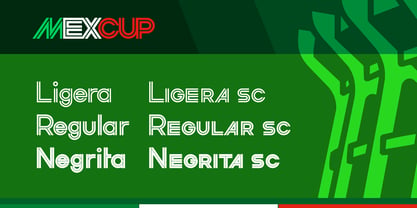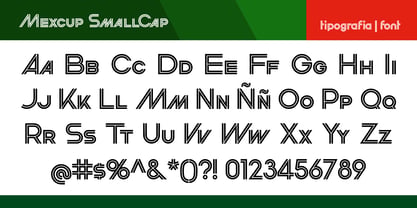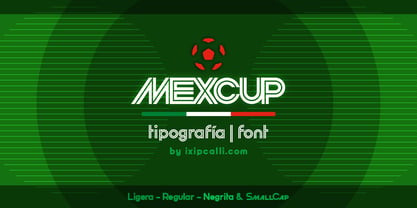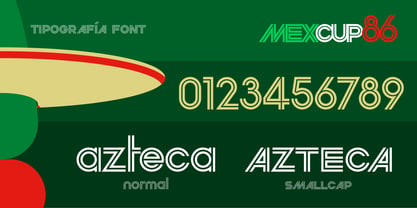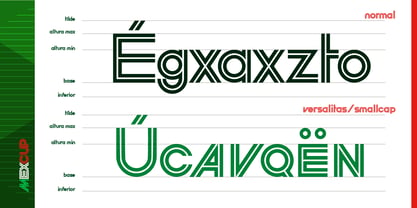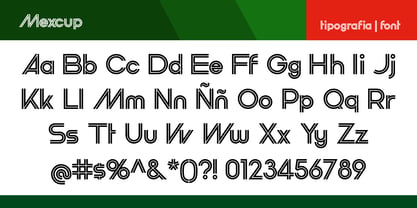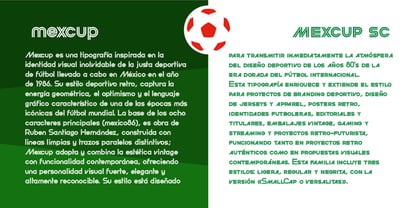
Mexcup
by Ixipcalli
The Mexcup Font Family was designed by Francisco Arellano and published by Ixipcalli. Mexcup contains 6 styles and family package options. More about this family
Mexcup is a typeface inspired by the unforgettable visual identity of the 1986 World Cup held in Mexico.
Its retro sports style captures the geometric energy, optimism, and graphic language characteristic of one of the most iconic eras in world soccer. The foundation of the eight main characters (mexico86) is the work of Ruben Santiago Hernández, built with clean lines and distinctive parallel strokes; Mexcup adopts and combines vintage aesthetics with contemporary functionality, offering a strong, elegant, and highly recognizable visual personality. Its style is designed to immediately convey the atmosphere of 1980s sports design from the golden age of international soccer.
This typeface enriches and extends the style for sports branding projects, jersey and apparel design, retro posters, soccer identities, editorials and headlines, vintage packaging, gaming and streaming, and retro-futuristic projects, working equally well in authentic retro projects as well as contemporary visual proposals. This family includes three styles: light, regular, and bold, with a “SmallCap” version.
Designers: Francisco Arellano
Foundry: Ixipcalli